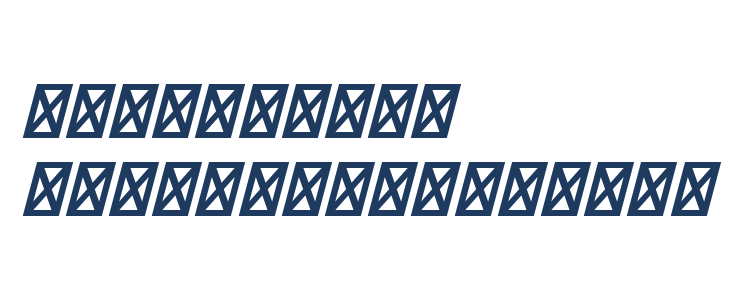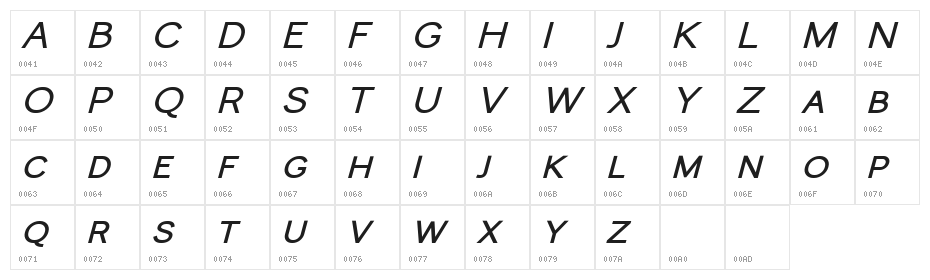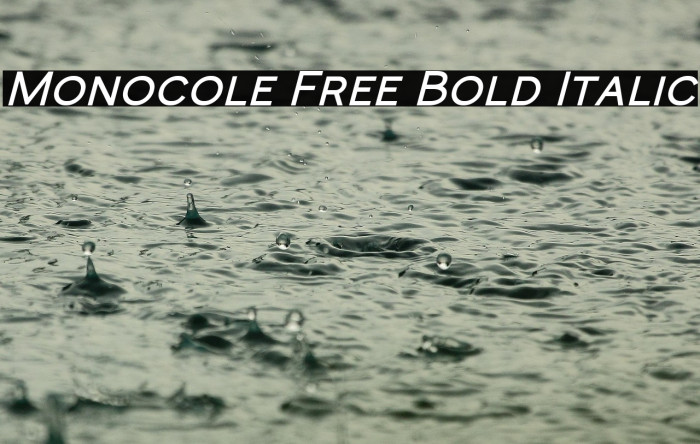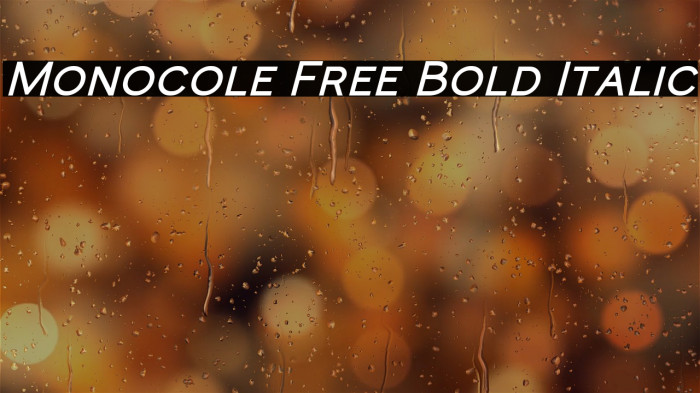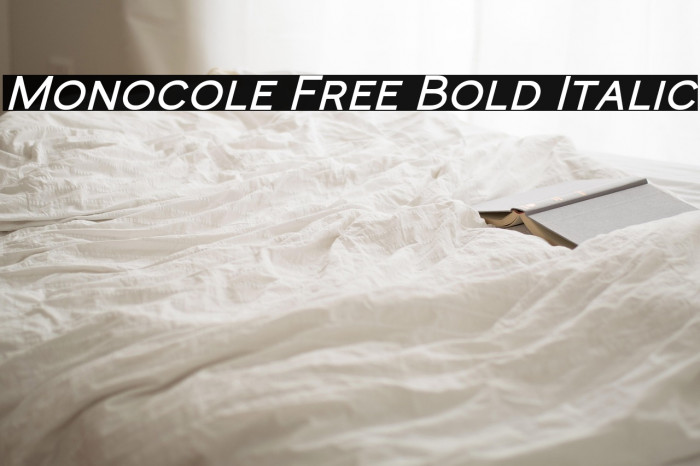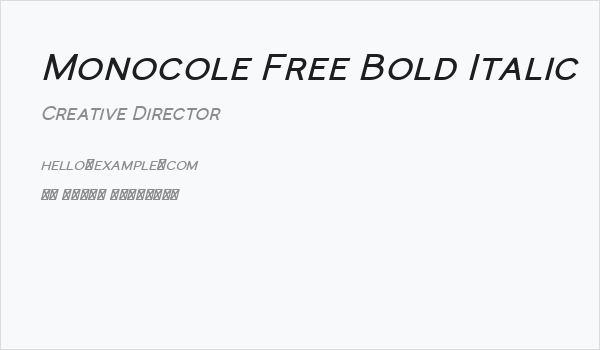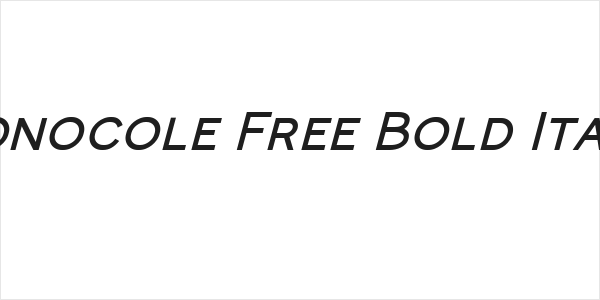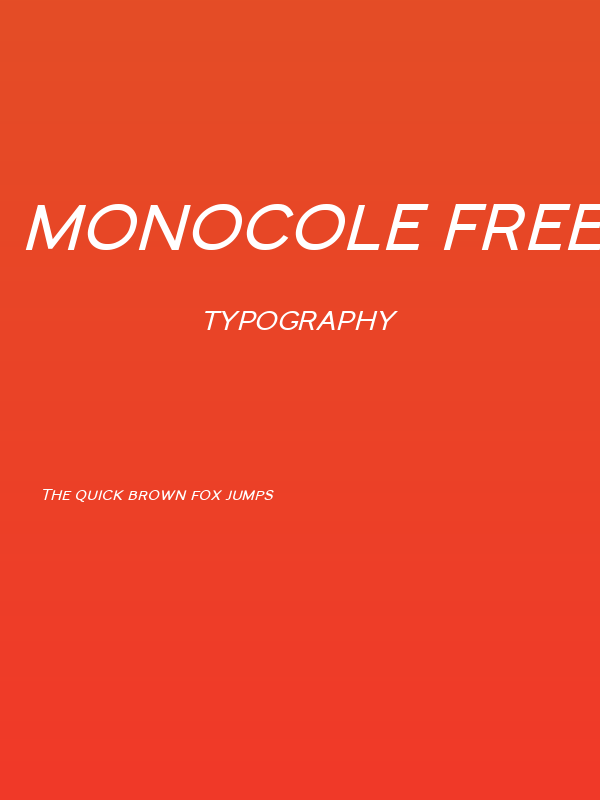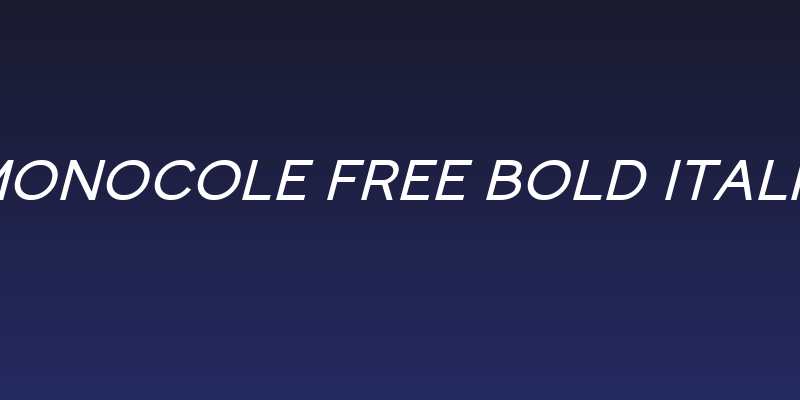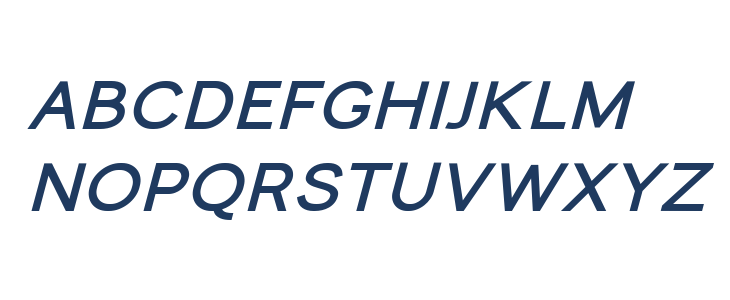
Monocole Free Bold Italic Font
Monocole Free Bold Italic Description
This font features a bold and italicized style, characterized by its slanted and dynamic appearance. The letters are well-defined with a consistent stroke weight, providing a strong and assertive look. The italic angle adds a sense of motion and elegance, making it suitable for creating emphasis in text. The uppercase and lowercase letters maintain a uniform design, ensuring readability and visual harmony. The numerals and special characters are crafted to match the overall style, offering versatility across different applications.